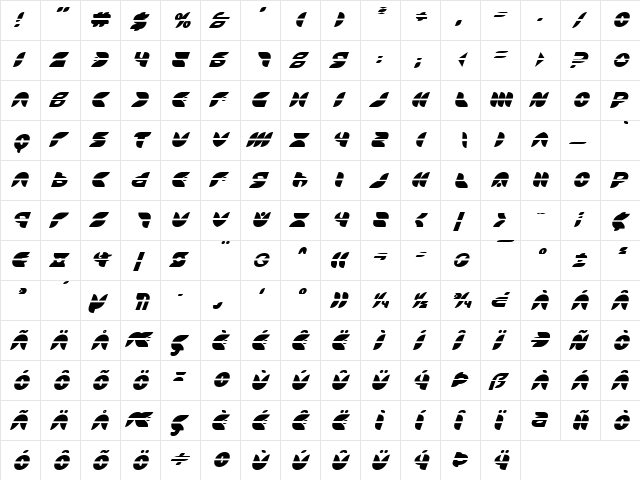
Puff Angel Laser Italic Laser Italic
Design Context for Puff Angel Laser Italic Typeface
Puff Angel Laser Italic is a composed and adaptable typeface that performs quietly and consistently across a wide range of design contexts. The slanted form adds forward momentum and visual energy.
Pro Tip: Try Puff Angel Laser Italic for annotation and caption copy alongside an upright companion — the contrast in angle creates a dynamic but ordered typographic system.